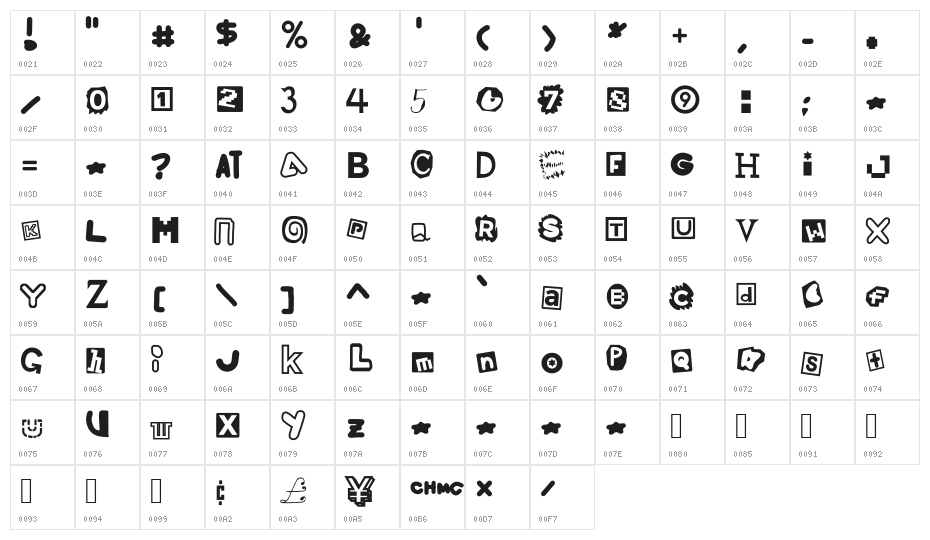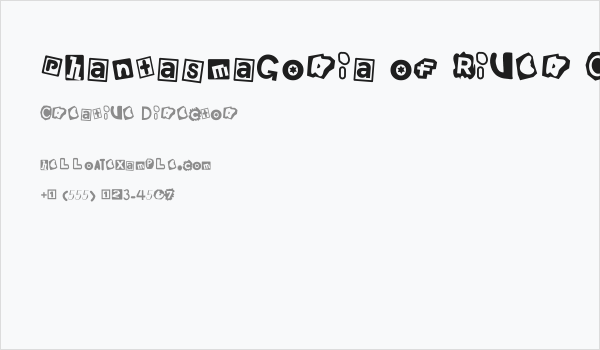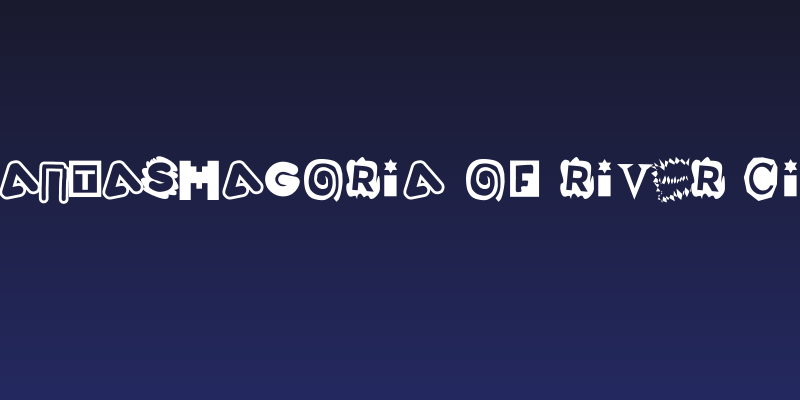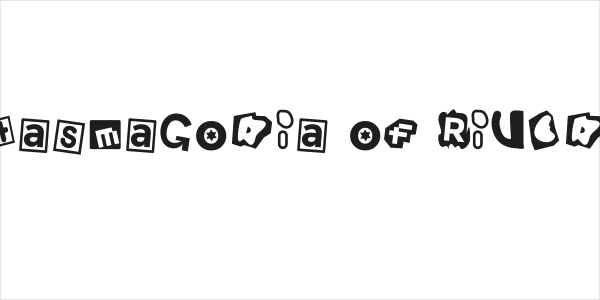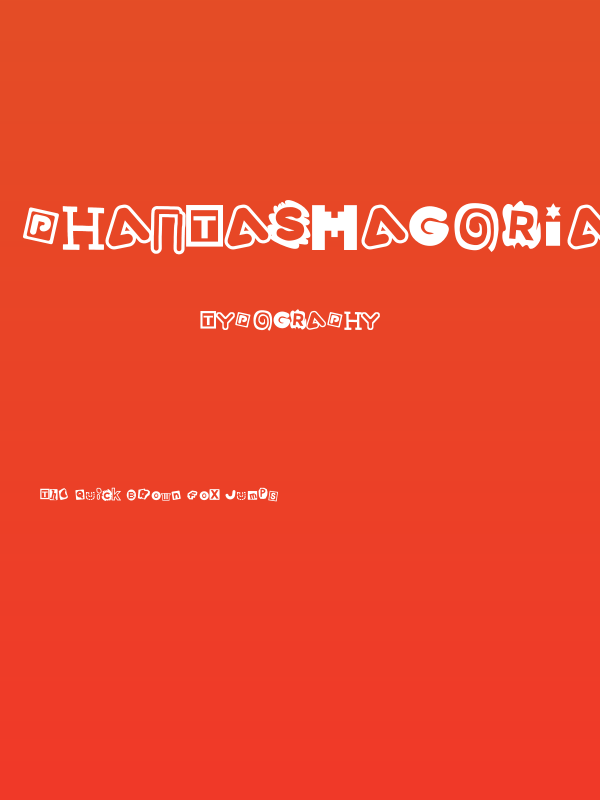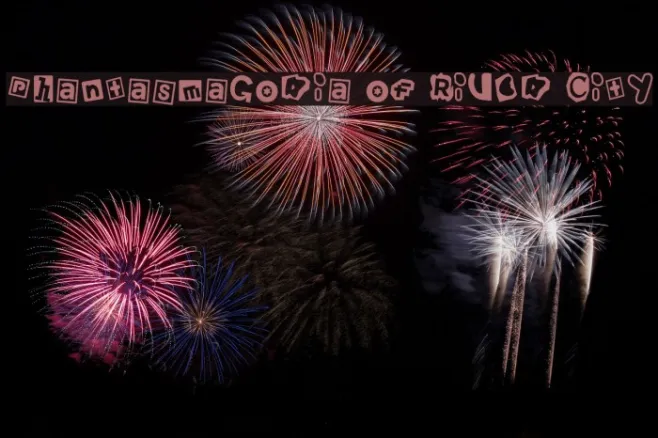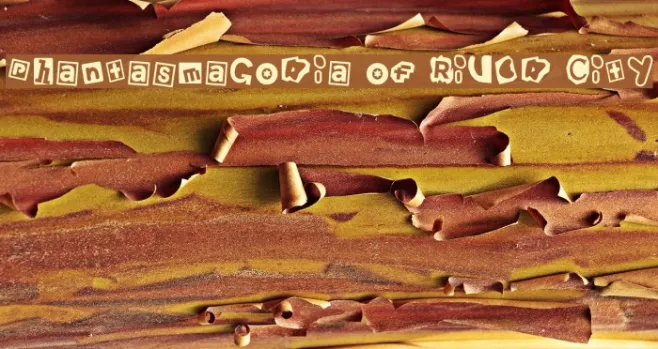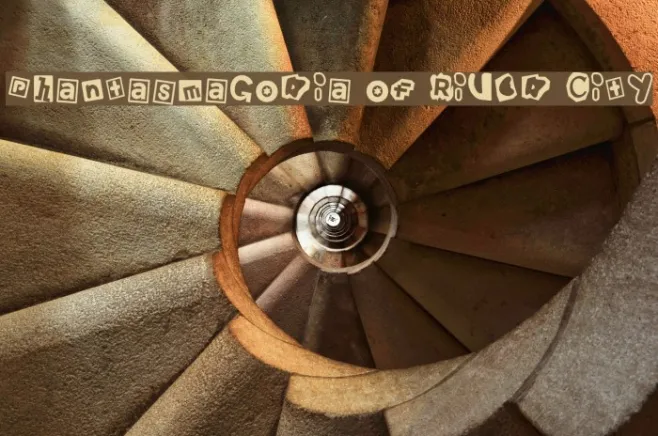
Phantasmagoria of River City Font
Phantasmagoria of River City Description
This font is a playful and eclectic collection of characters, each with its own unique style and flair. The uppercase letters feature a variety of bold, quirky designs, incorporating elements like stars, stripes, and geometric shapes. The lowercase letters continue this theme with a mix of whimsical and bold styles, creating a sense of fun and unpredictability. Numbers and special characters are equally diverse, with each symbol offering a distinct visual experience. The overall design is reminiscent of a ransom note, with each character appearing as if cut from different sources, adding to its chaotic charm.
| Proposed Projects | Ideal for creative projects like posters, album covers, children's books, and party invitations where a fun and unconventional look is desired. |